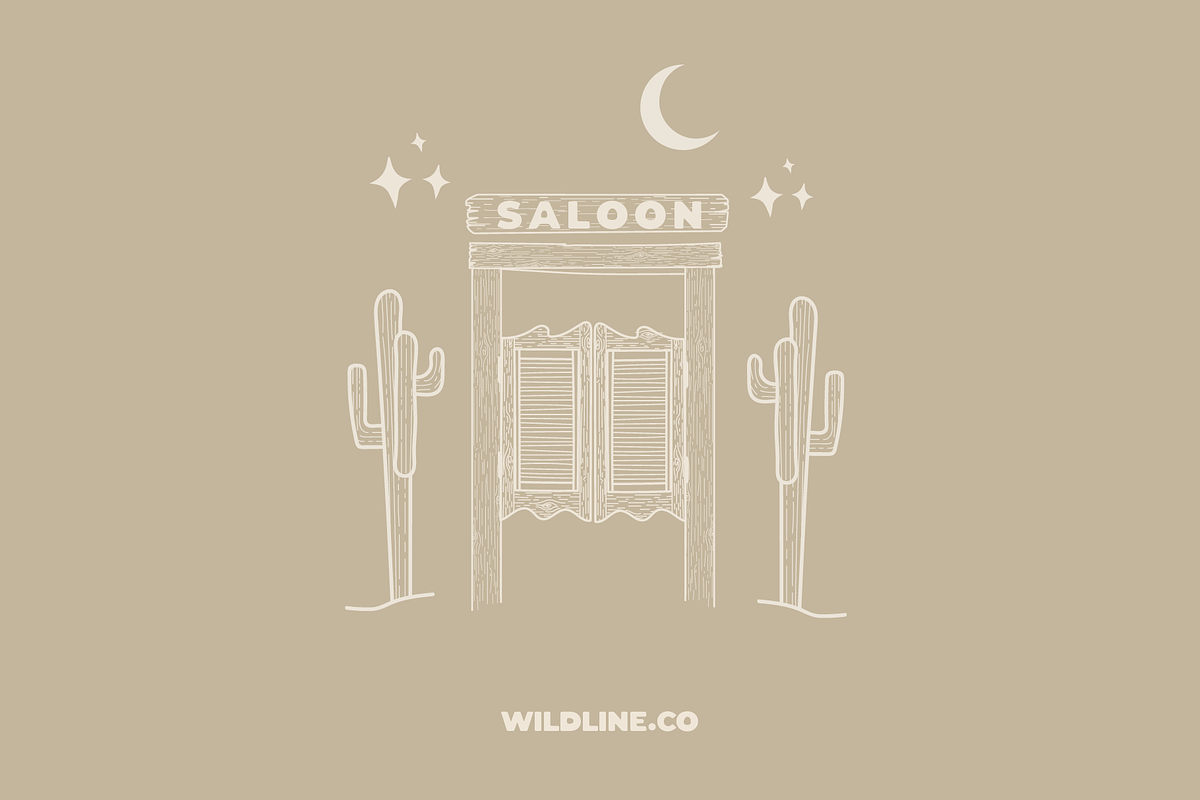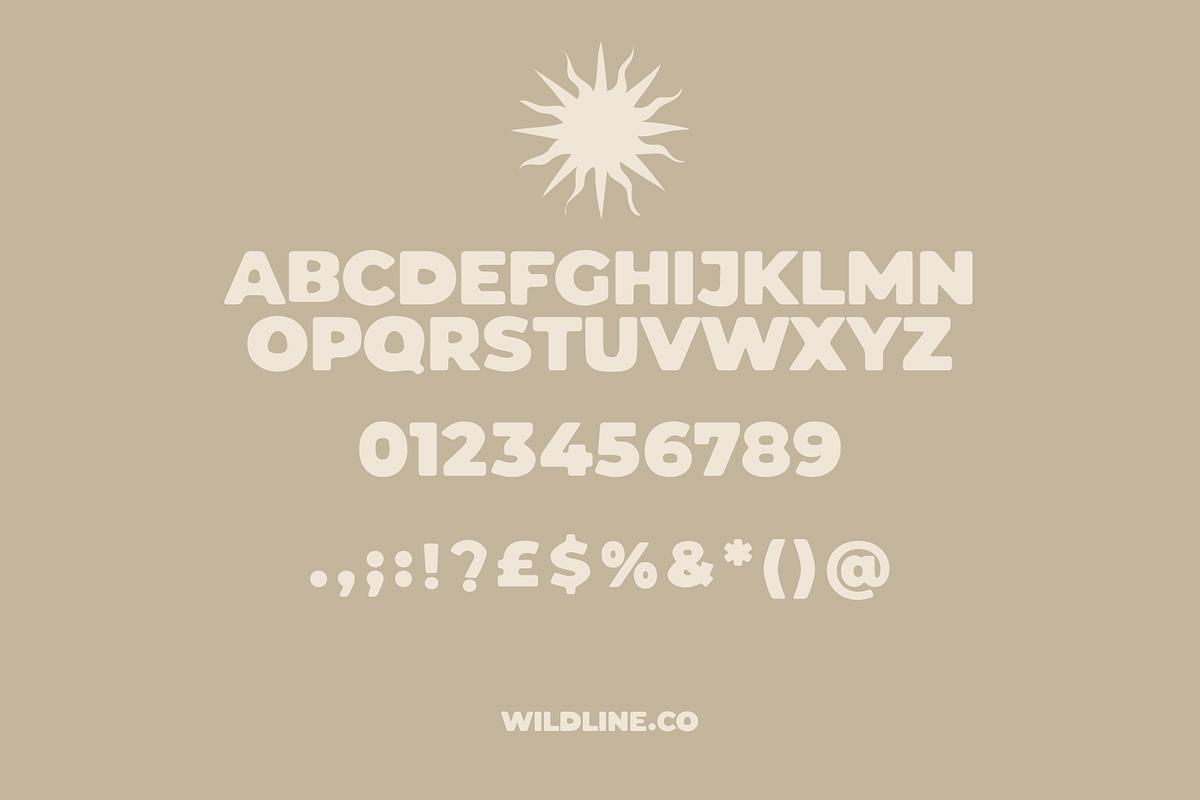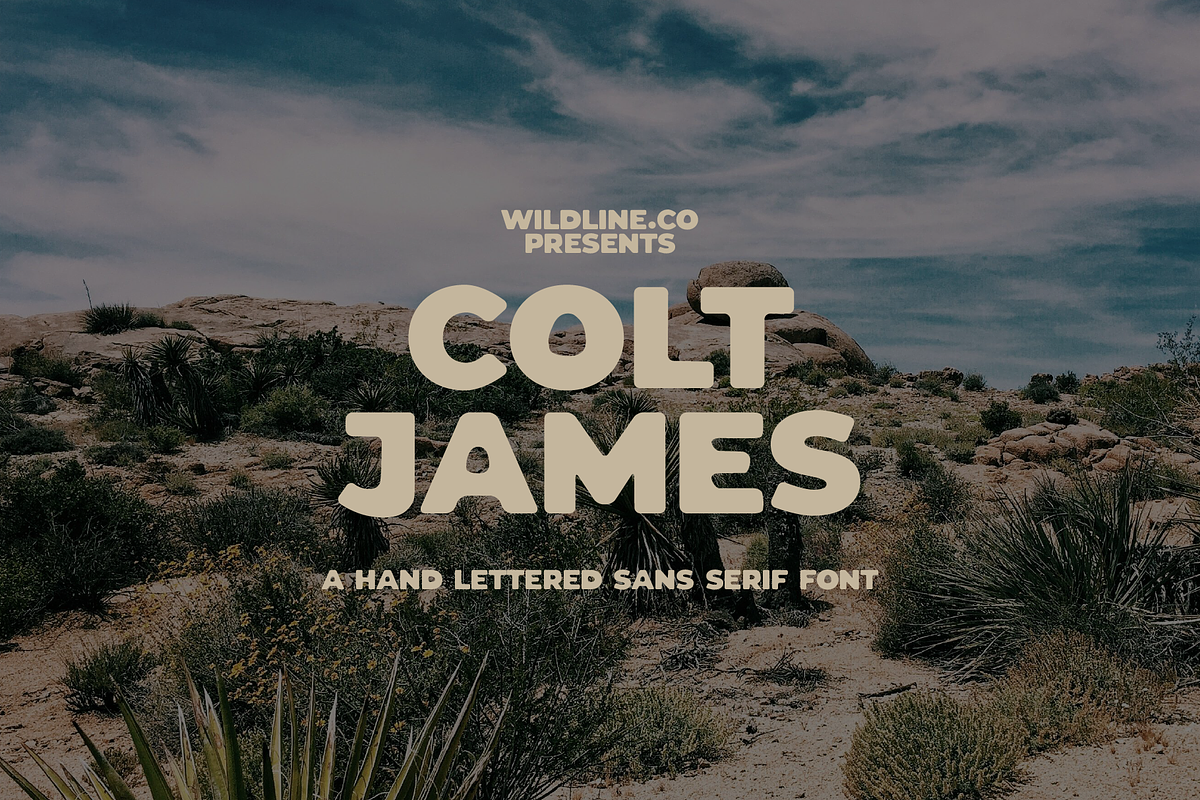
Colt James | Hand Lettered Type
Colt James is a hand drawn sans serif typeface with an easy going charm and a solid presence. Think vintage motel signs, sun-faded road trip postcards, and old denim labels; this font’s got that familiar, nostalgic feel without trying too hard.
Every letter is drawn by hand, giving it a natural, slightly imperfect edge that brings warmth and personality to your designs. It's bold, but approachable. Clean, but with soul.